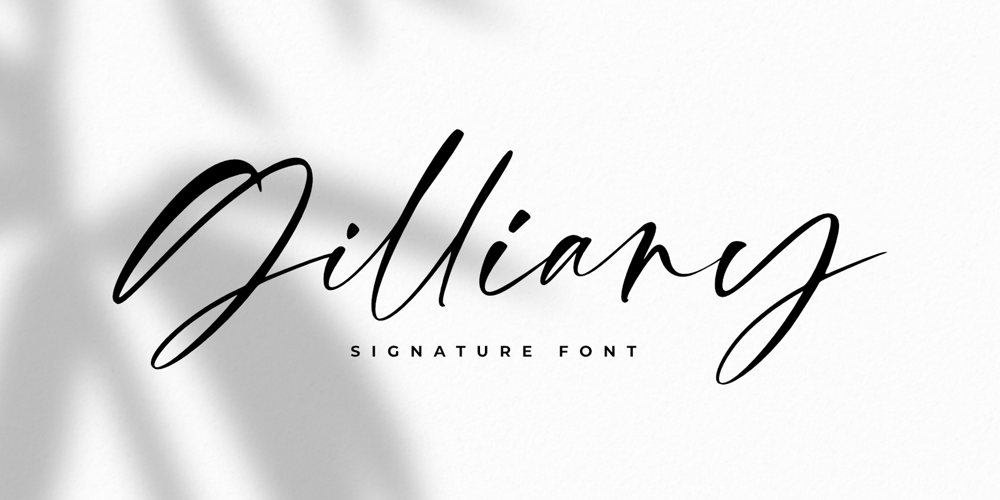
Gilliany Font Family was designed by Revo Farsiky and published by Pen Culture. Gilliany contains 1 styles and family package options. Gilliany is modern signature font that with a neat handwriting style, the shape of each letter and ligature has its own characteristics that are suitable for a variety of needs.Gilliany come with full set of uppercase and lowercase letters, multilingual symbols, numerals, punctuation and 71 ligatures.I really hope you enjoy it – please do let me know what you think, comments & likes are always hugely welcomed and appreciated. More importantly, please don’t hesitate to drop me a message if you have any issues or queries.Guides to access all alternates glyphs : http://adobe.ly/1m1fn4YPlease fell free to contact me if you have any questionThank you